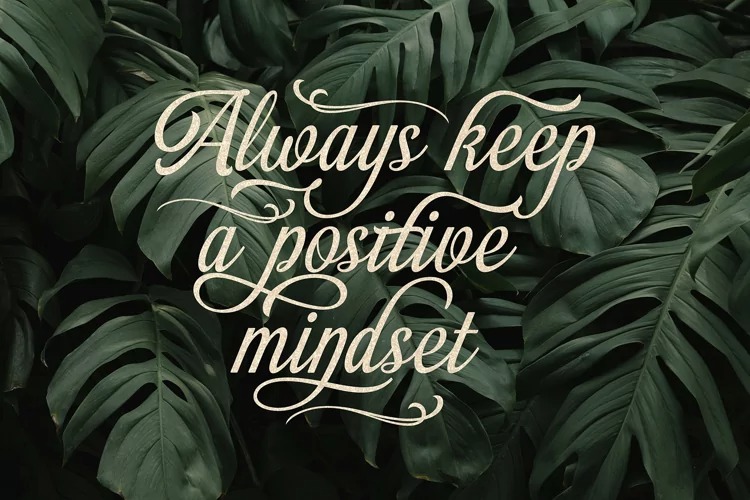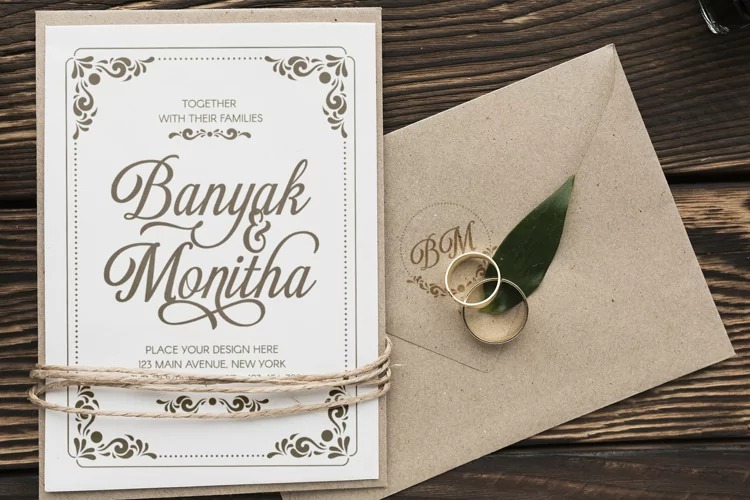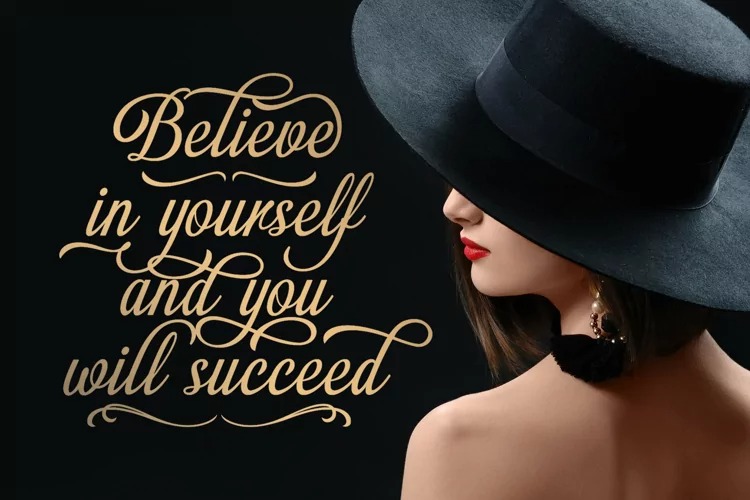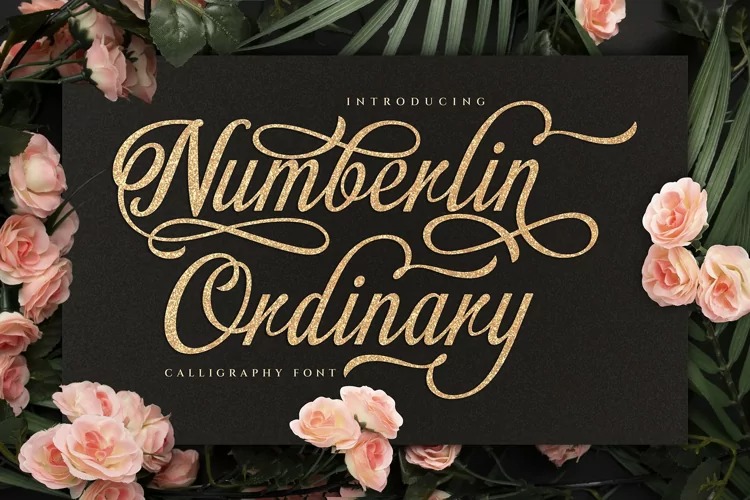
Numberlin Ordinary Calligraphy Font is a modern script typeface that features a classic and Unique touch. This font can be used for various purposes, including for invitations, weddings, birthdays, fashion, products, feminine, beauty, salon, product packaging, quotes, product designs, crafters, labels, photography, watermarks, t-shirts, logos & branding. Everything can be accessed using software that supports Opentype, such as Adobe Indesign, Adobe CS Illustrator, Adobe Photoshop CC, and Corel Draw.